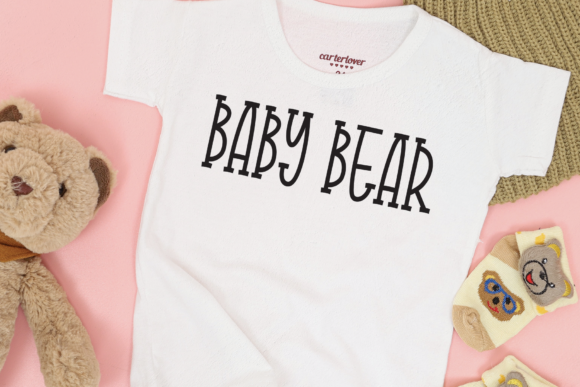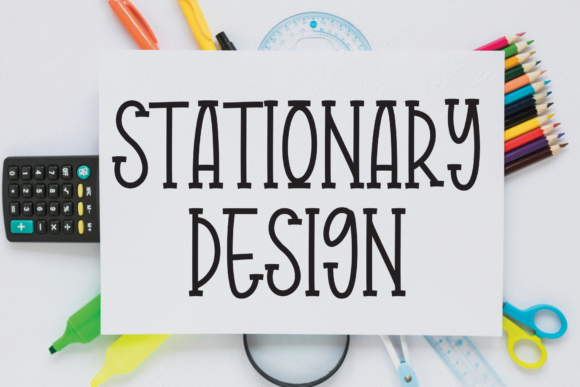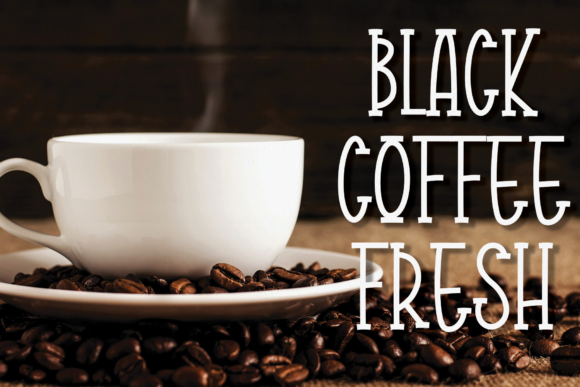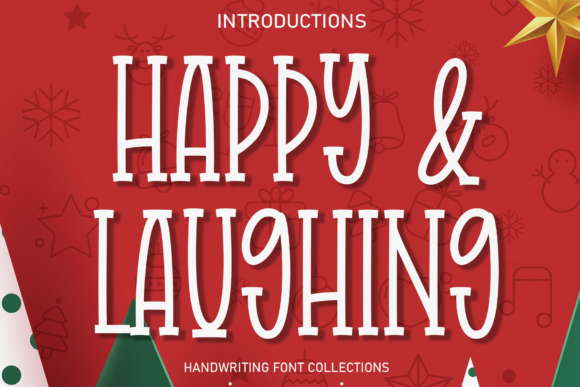
Introduction to Happy & Laughing Font
Happy & Laughing is a fun and quirky looking display font.
Why Choose Happy & Laughing Font?
Happy & Laughing Font offers exceptional quality and versatility, making it a valuable addition to your design toolkit. Whether you’re creating for personal projects or commercial use, Happy & Laughing Font delivers professional results.